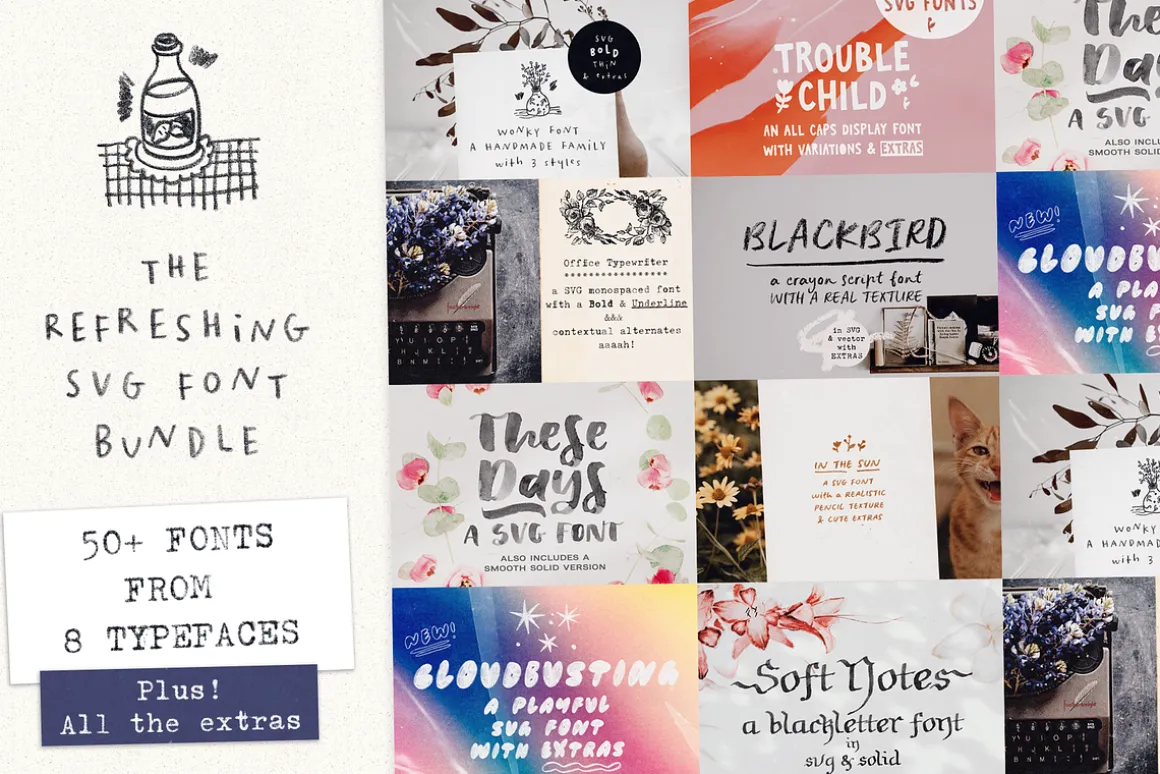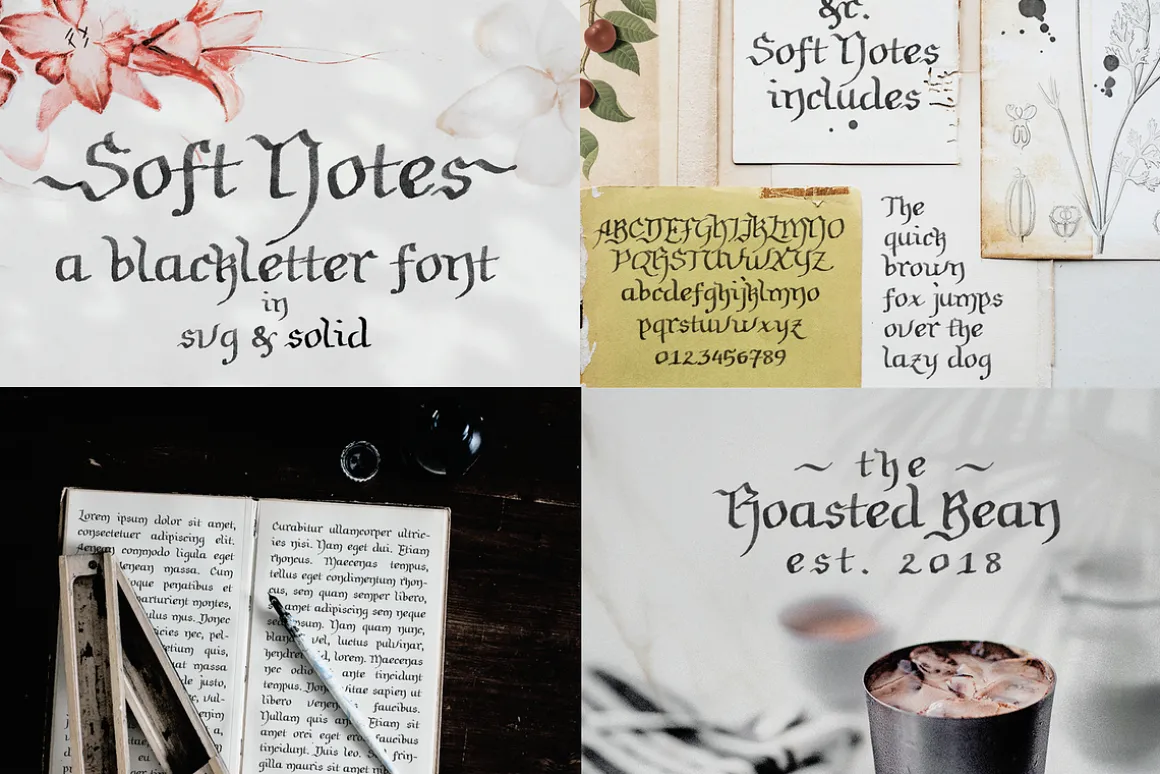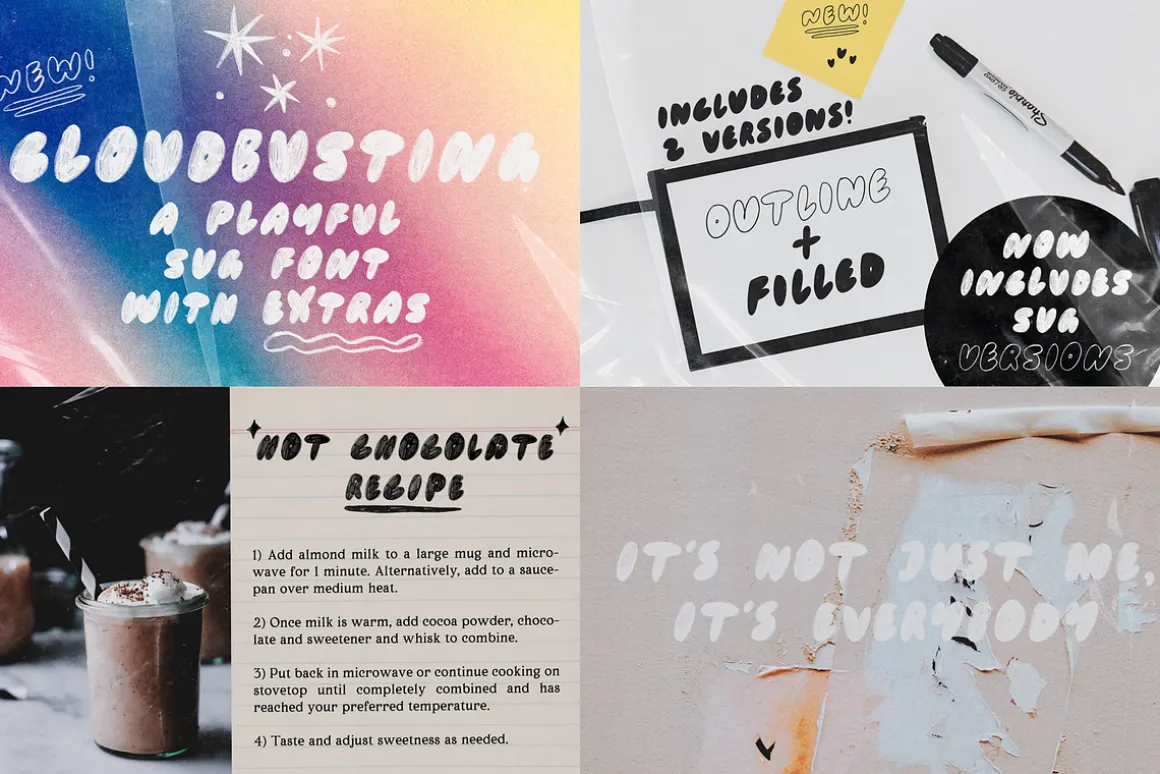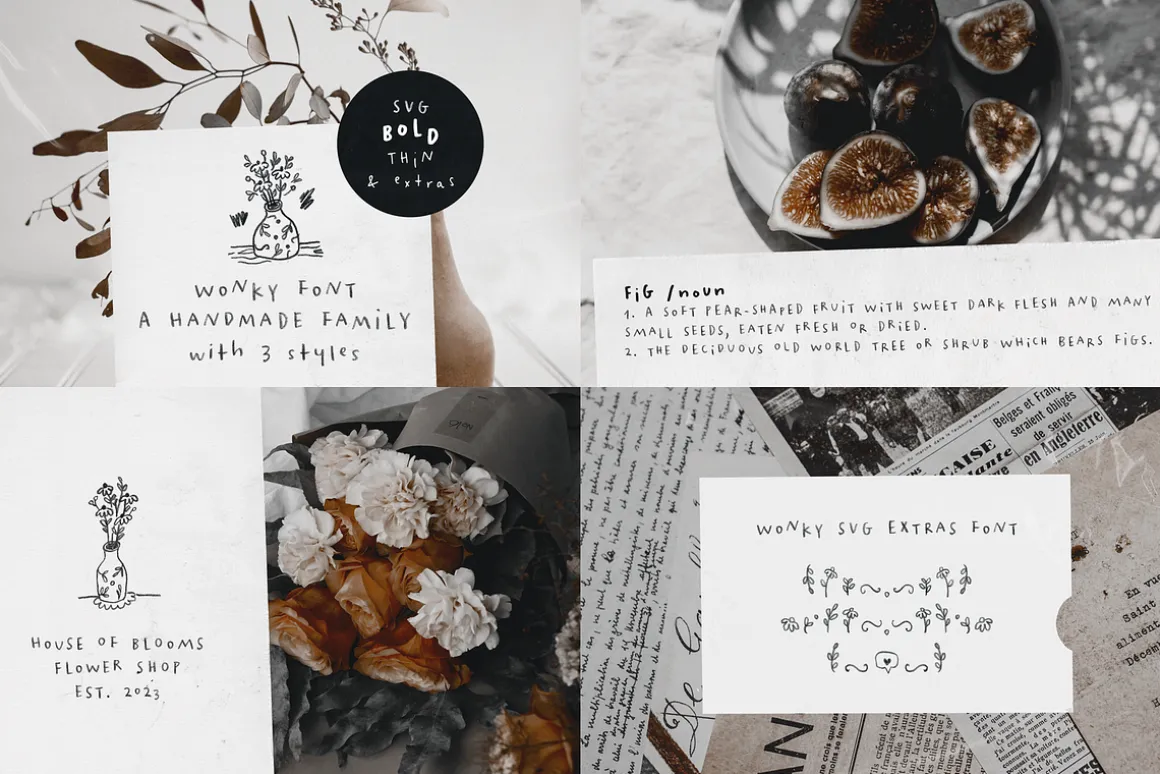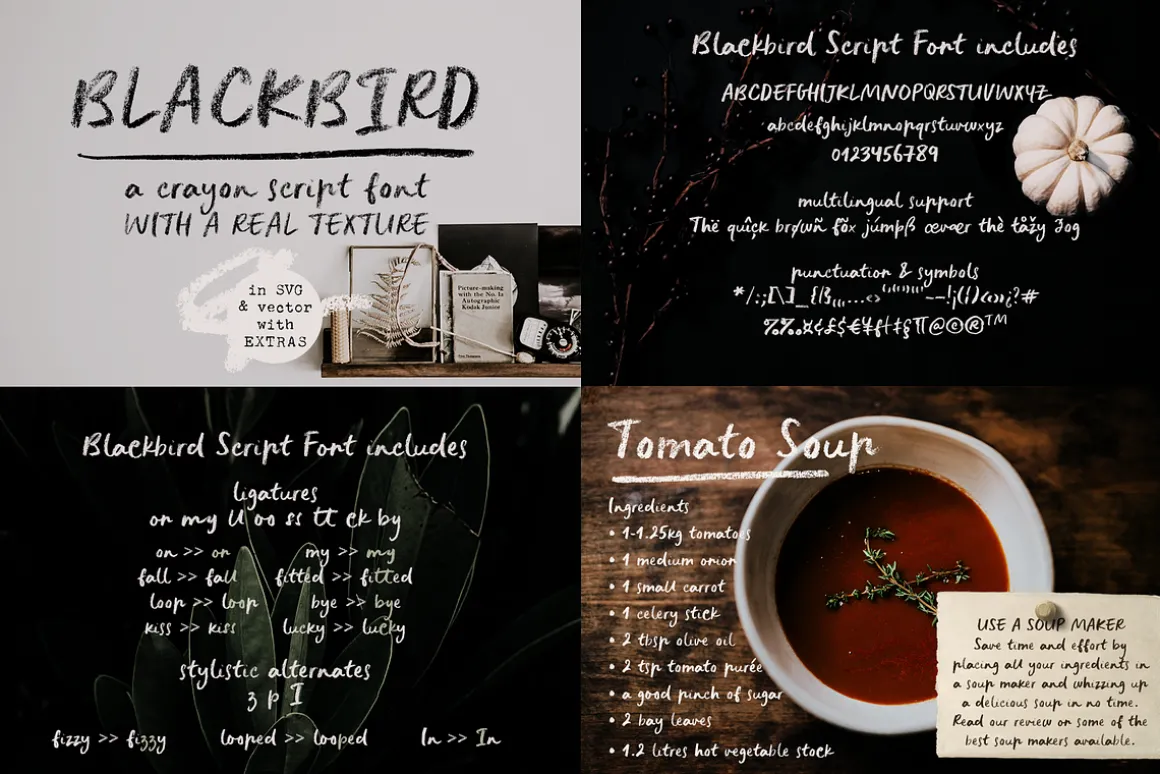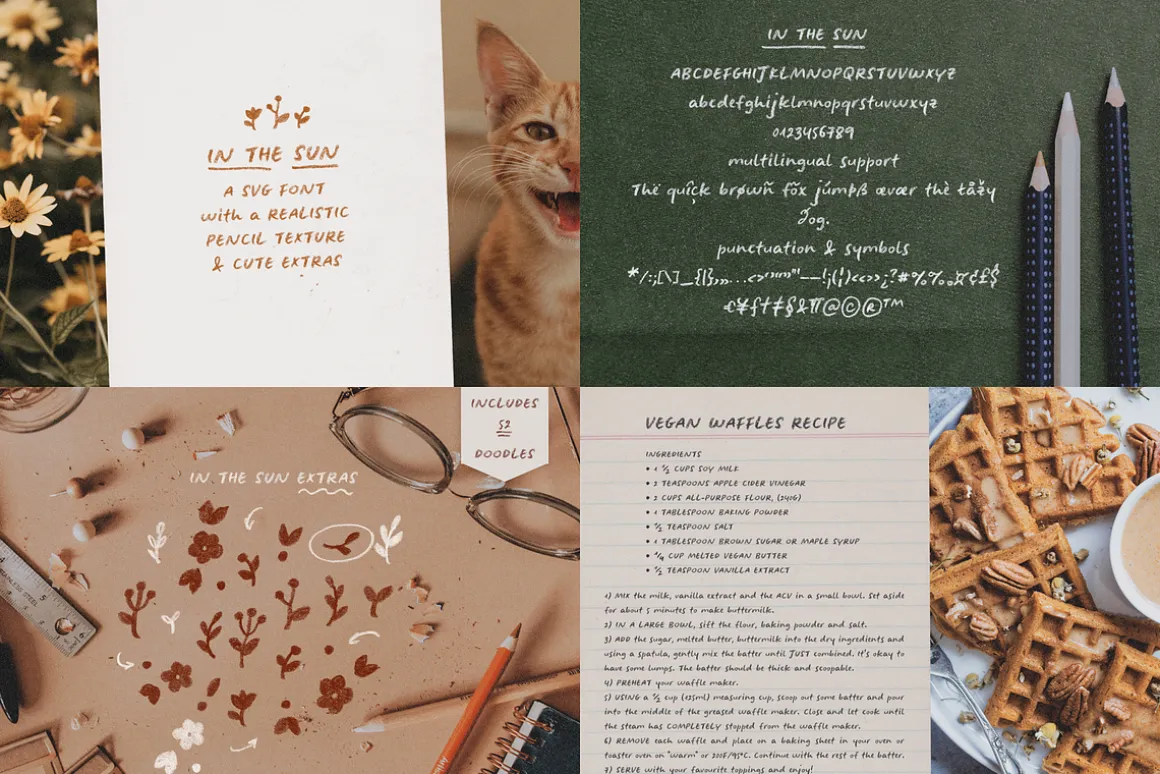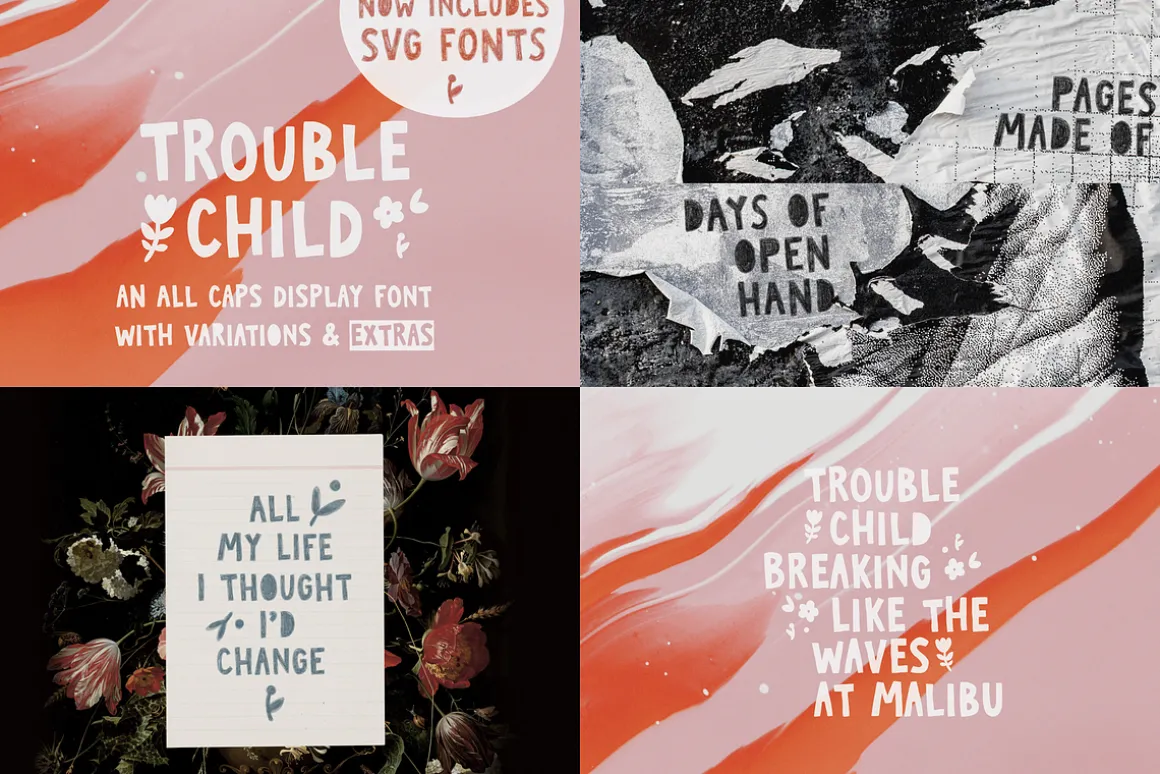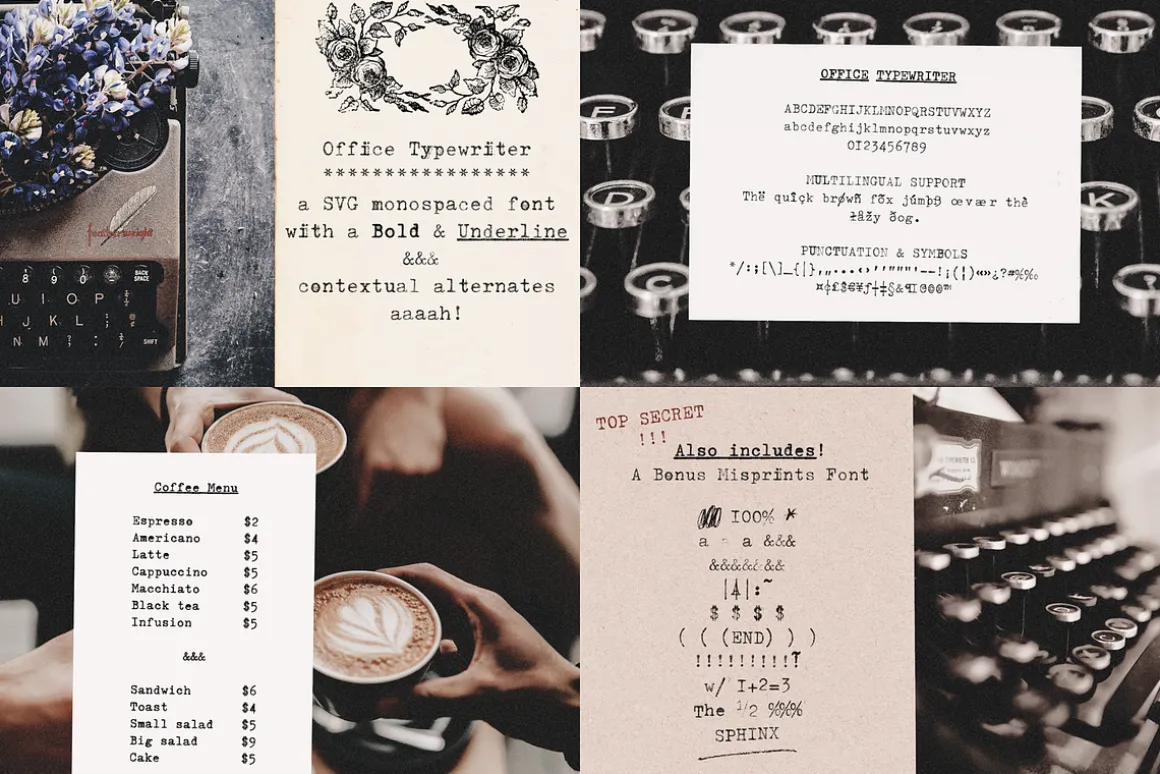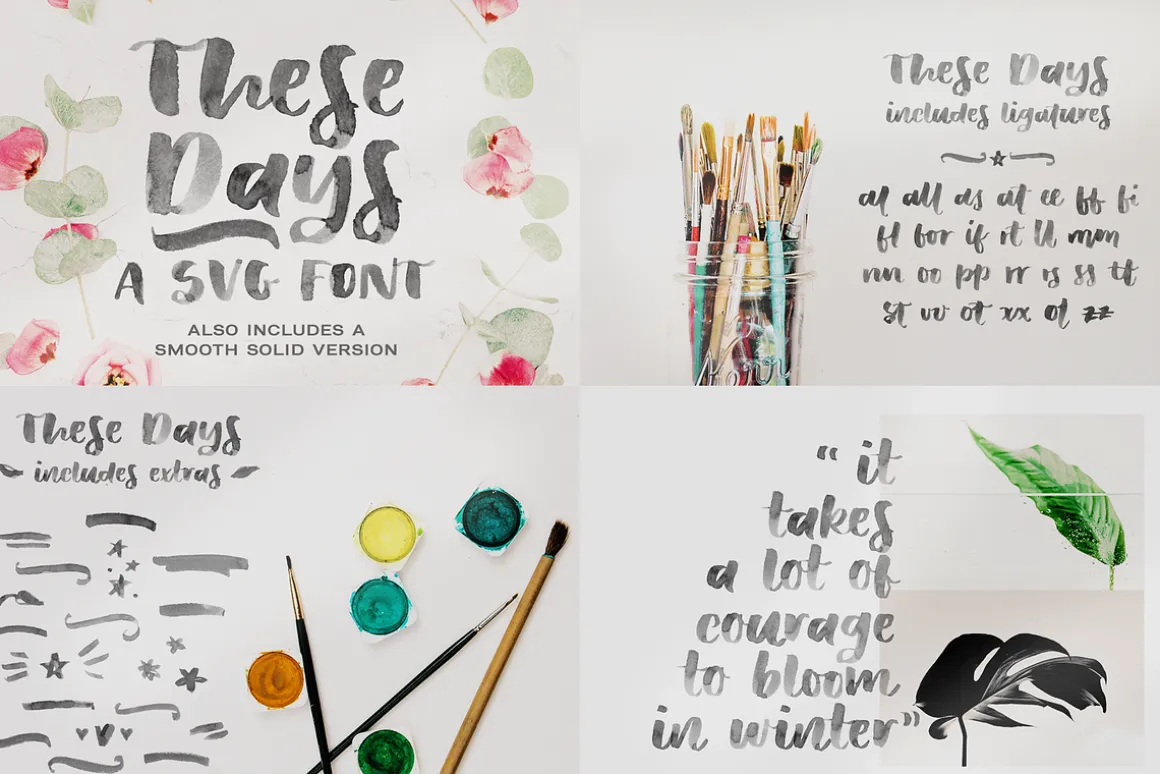
This is a collection of all my SVG fonts. It includes typefaces in all sorts of different styles, from sans to handwritten, from blackletter to typewriter. The SVG format allows for the textures in the fonts to look more authentic and fun to use. Use these cute fonts in designs such as postcards and notes, posters, logotypes, social media posts, branding and packaging.
Included in this bundle:
- Wonky Font Trio:
- Trouble Child:
- Office Typewriter:
- Blackbird:
- These Days:
- In The Sun:
- Cloudbusting:
- Soft Notes: